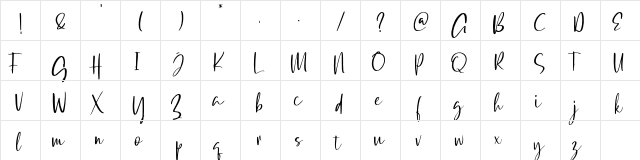
Qatar Capital Demo Regular
| Foundry | Runsell Studio |
| Designer | Edi Gunawan |
Design Context for Qatar Capital Demo Typeface
Qatar Capital Demo is a composed and adaptable typeface that performs quietly and consistently across a wide range of design contexts.